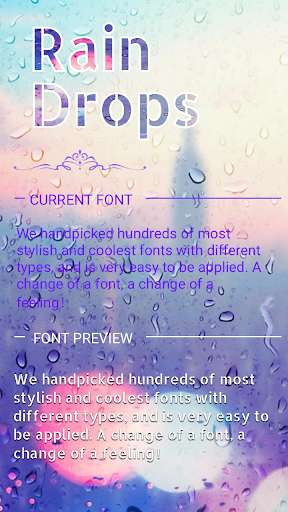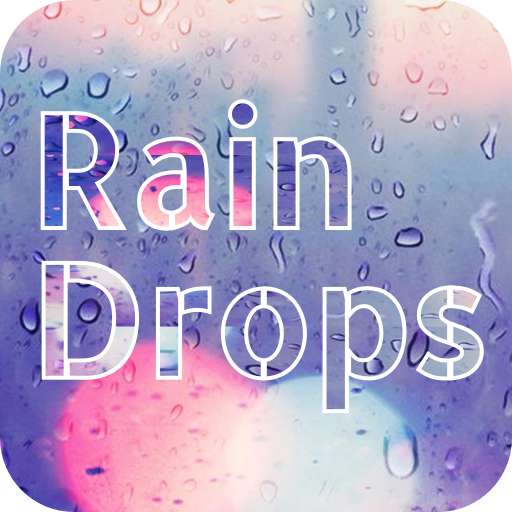
Rain Drops allows all users to change the system font of your phone or tablet .
You can find the amazing and perfect font style which fits your taste well.
Change your entire phone font into Rain Drops.
Come and experience the customized font for you.
The feature of Rain Drops is compatible ability.
Lovely, sweet and colorful as you wish.
Hundreds of selected fonts style from handwritten fonts like Rain Drops, such as cute, darker, comic, galaxy, love, pink, sexy written, colorful fonts, clean fonts, candy fonts, etc.